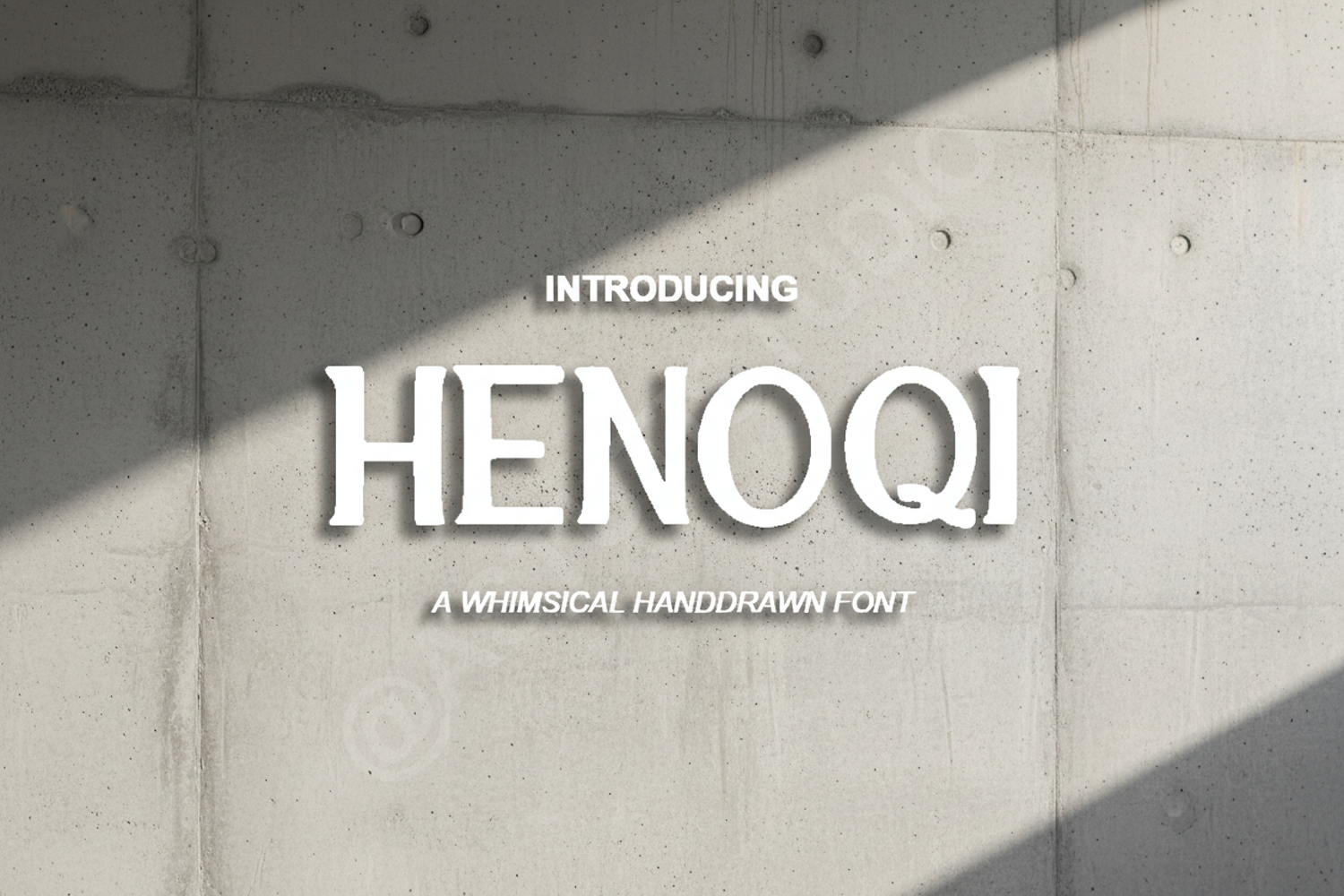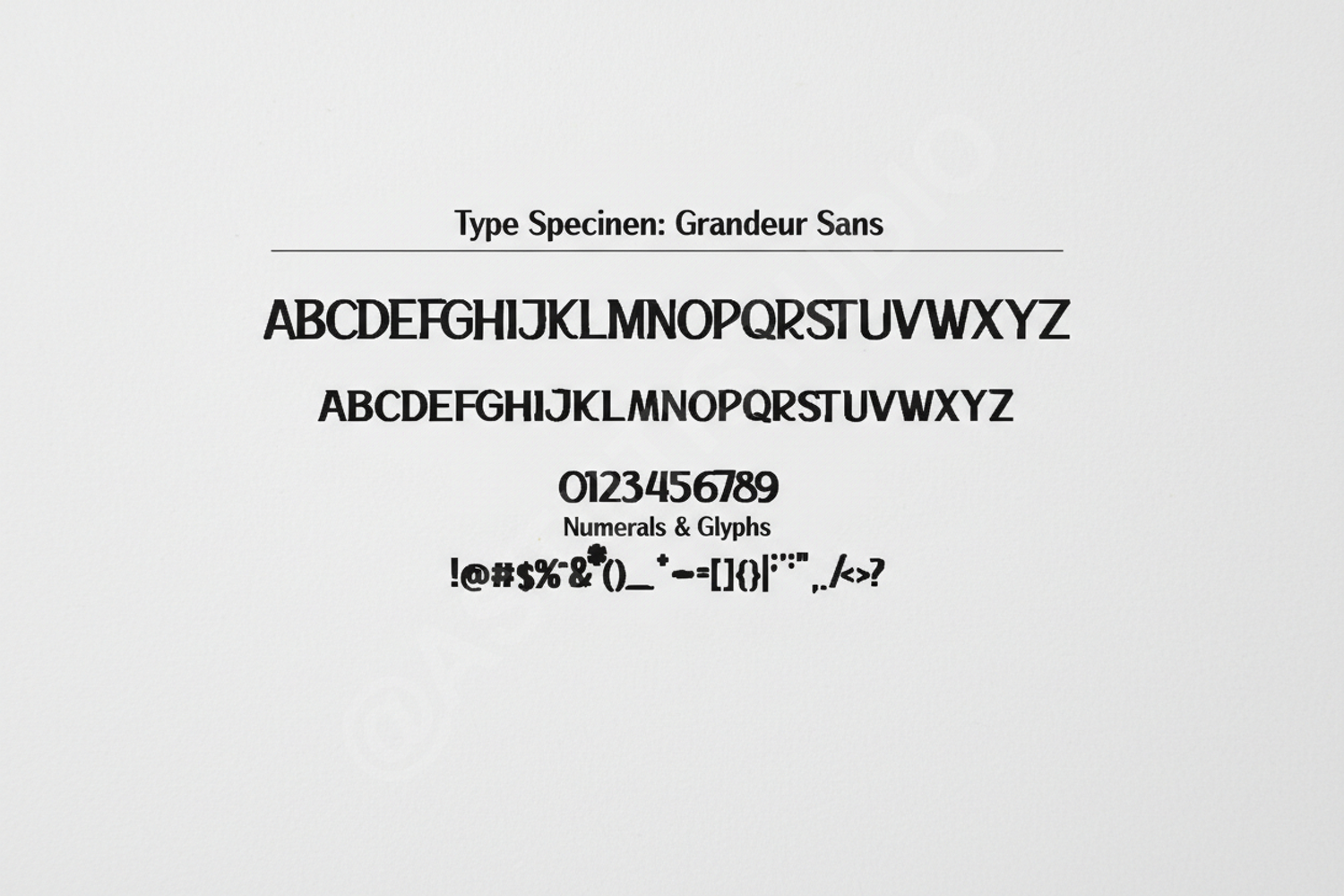
Henoqi - Modern Elegant Sans Serif Typeface
Henoqi
Elevate your creative projects with Henoqi, a premium sans serif typeface that blends contemporary minimalism with timeless elegance. Designed for designers who demand precision and style, Henoqi offers a clean, sophisticated aesthetic that ensures your message is delivered with clarity and high-end appeal.
- Full character set including uppercase, lowercase, numbers, and punctuation
- Multilingual support for global accessibility
- Branding and Visual Identity: Create memorable logos and corporate stationery.
- Editorial Design: Perfect for magazine layouts, book covers, and high-fashion spreads.
- Social Media: Design eye-catching Instagram quotes and Pinterest graphics.
- Wedding and Event Stationery: Add a modern touch to invitations and menus.
- Digital Design: Optimized for website headers and mobile app interfaces.